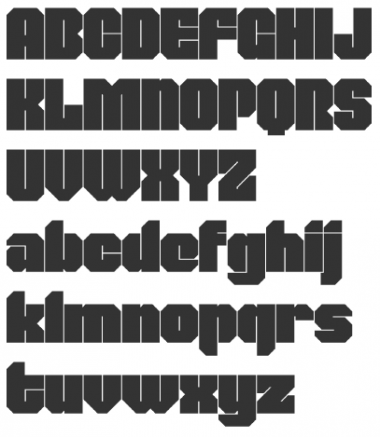
by Em42
A very fat font based on obese geometry.
Cool.
simple. strong. love it.
Wonderful, Em. The lowercase 'e' reminds me of the crossed out eyes of comic book drunks.
I like it, as it really reminds me of my NCD Autonium Normal except with slight detail variations. Defo has that comic book feel.
@Afrojet: drunken, or passed out eyes, especially in anime art, was a constant reference while designing this set. :)
@Djnippa: I did not recall all the variations of your Autonium series, but you are right, it really looks like I just tweaked something in your font.
I just started sketching on paper a squared "s" and "o" with exaggerated ink-traps, then started to lay down the other letters in FontStruct. I think that when the starting point is so basic, it is only possible to have slight variations on the same concept. I suspect the same may apply to Infix.
Such beautiful numbers, Em42. :)
Sixto preliminary sketches.
the X's on the letters makes me remember the Amsterdam flag a lot!